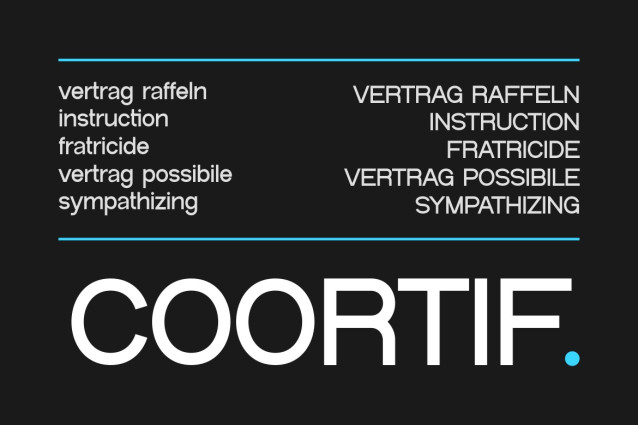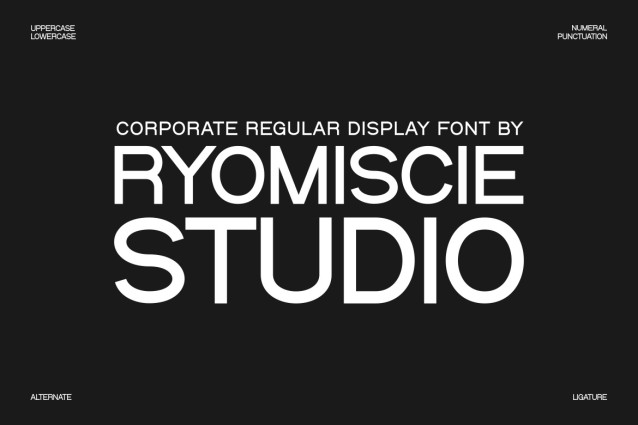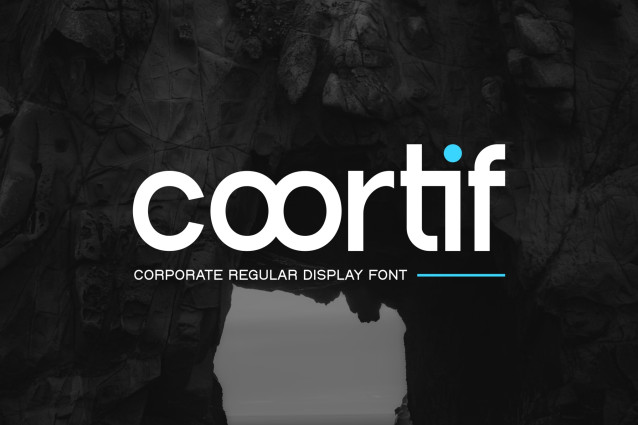
Coortif Font
Coortif Font is a regular and authentic display font. The font is suitable for any branding project like logo, esport, and many more. outstanding in a wide range of contexts.